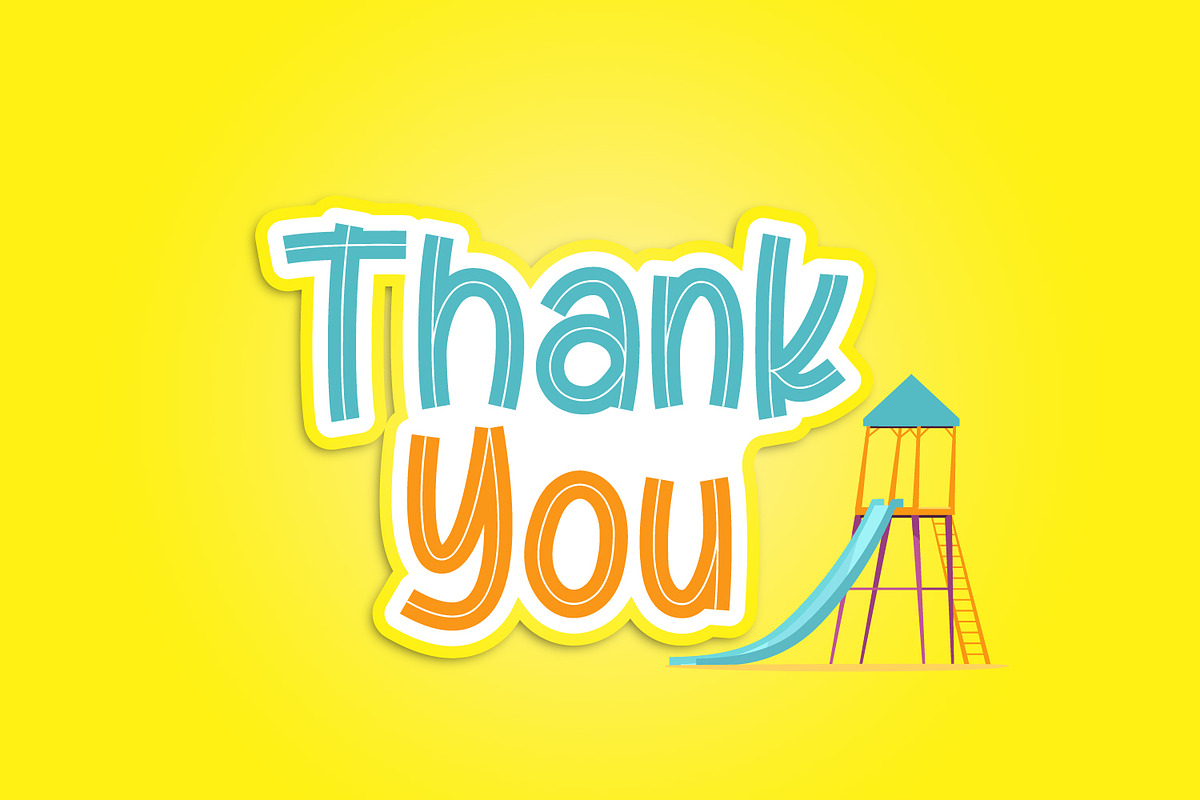
Kids Place
Kids Place Font is our new font with a playful, cute, clean style. Have three styles all of which can be combined for your project. Having a very neat style that is easy to read makes your project more quality.
Kids Place Font is very suitable for various projects according to your needs.